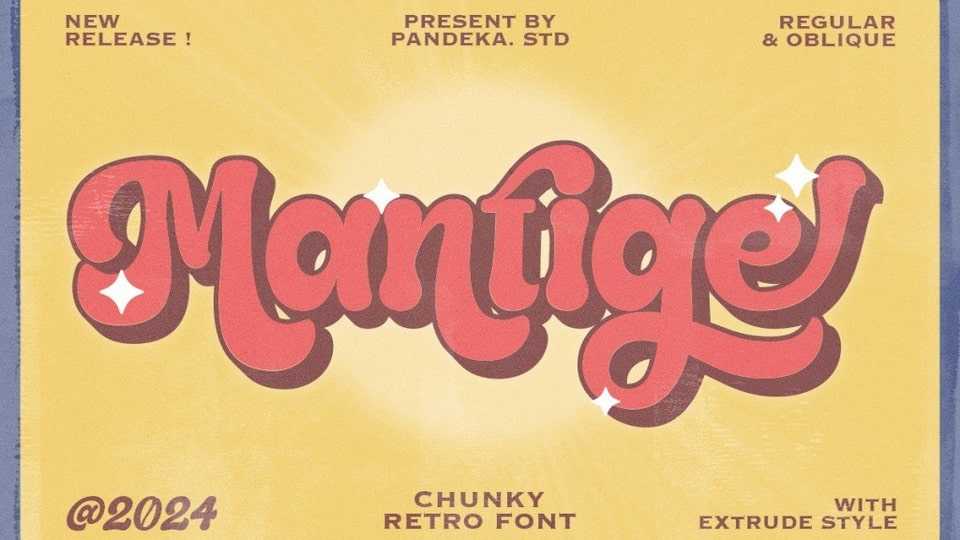
Mantige Font › Fontesk – Download Grátis
Download Mantige font, a homage to the expressive, soft and rounded old-style serif typefaces from the sixties and seventies.